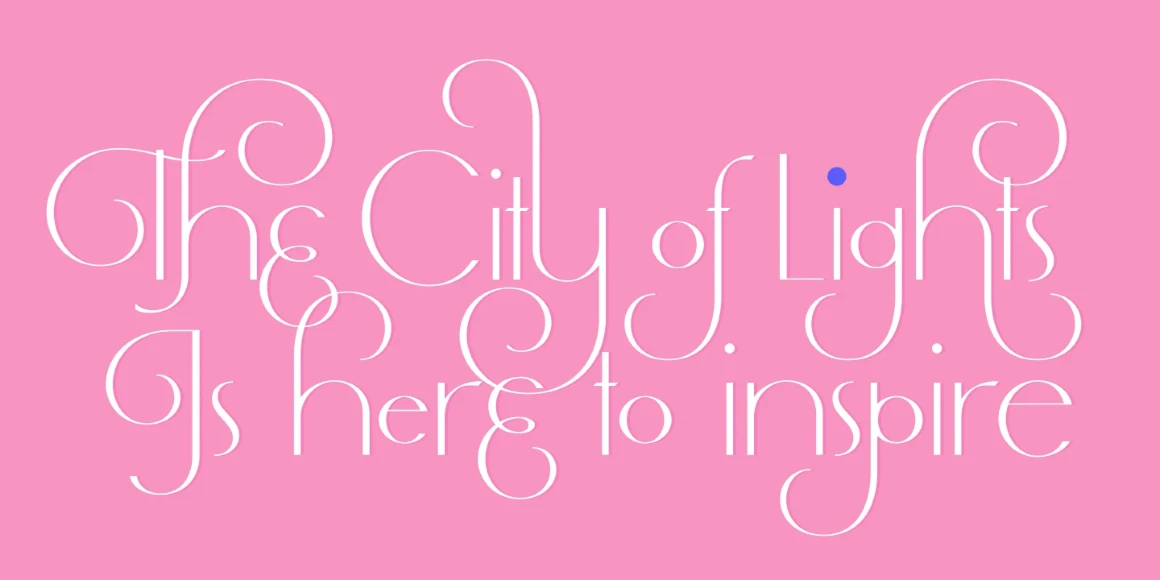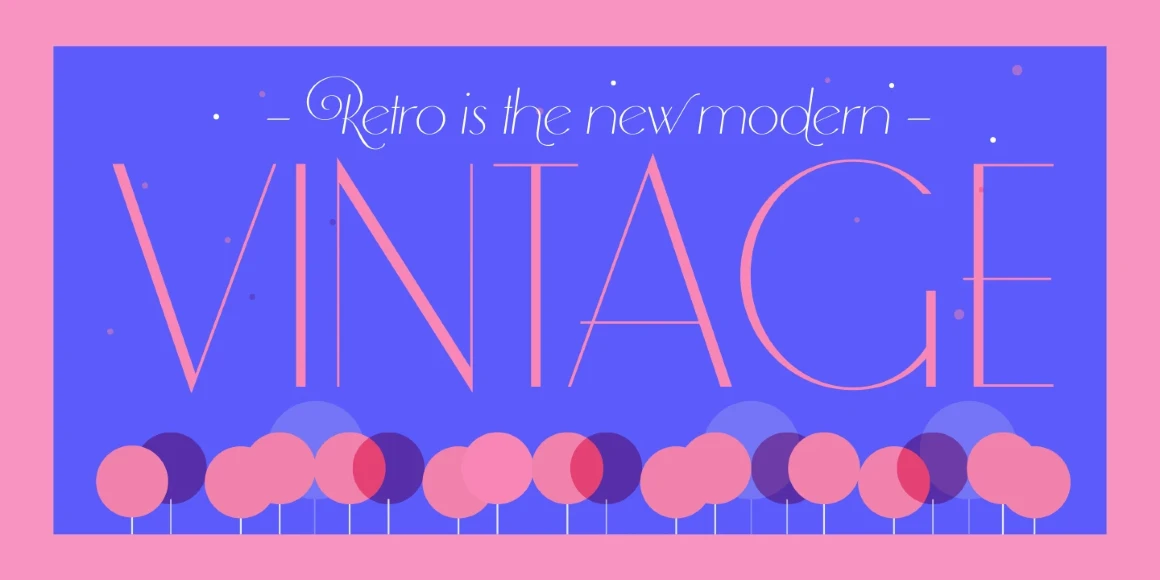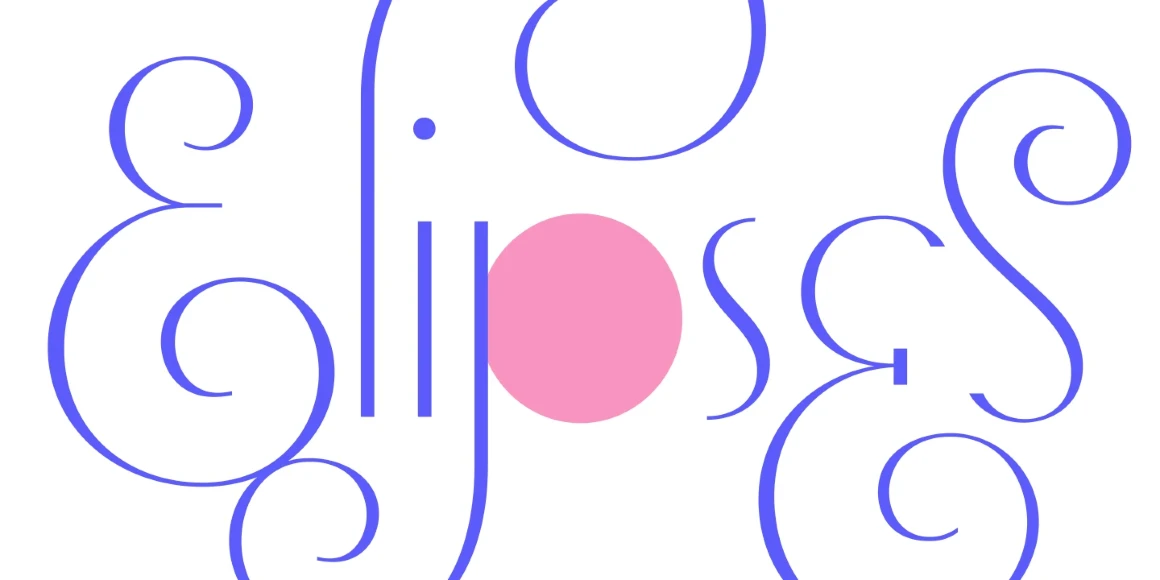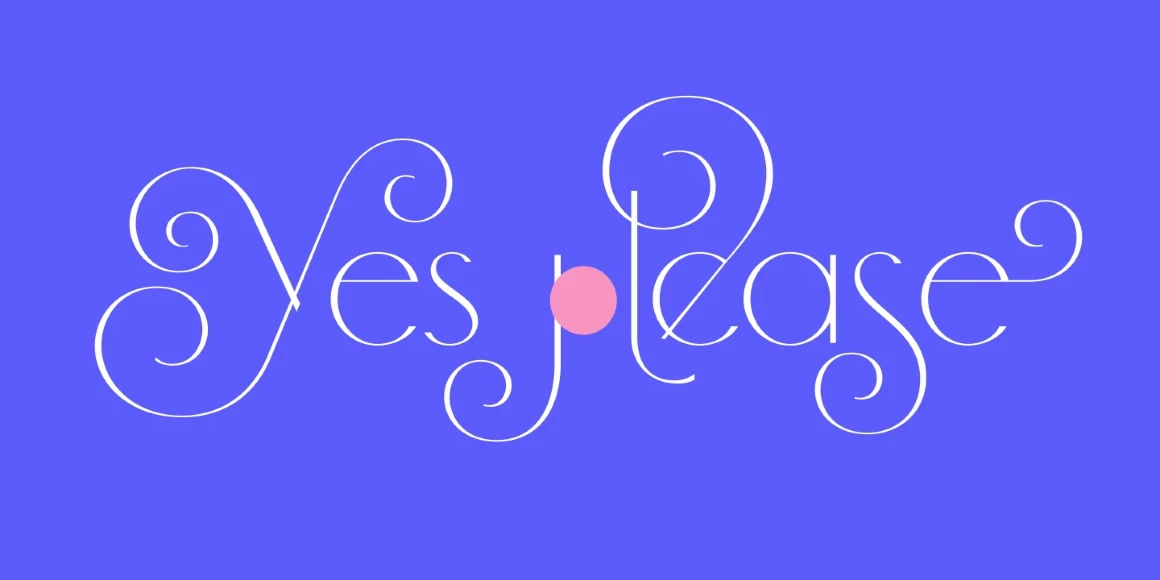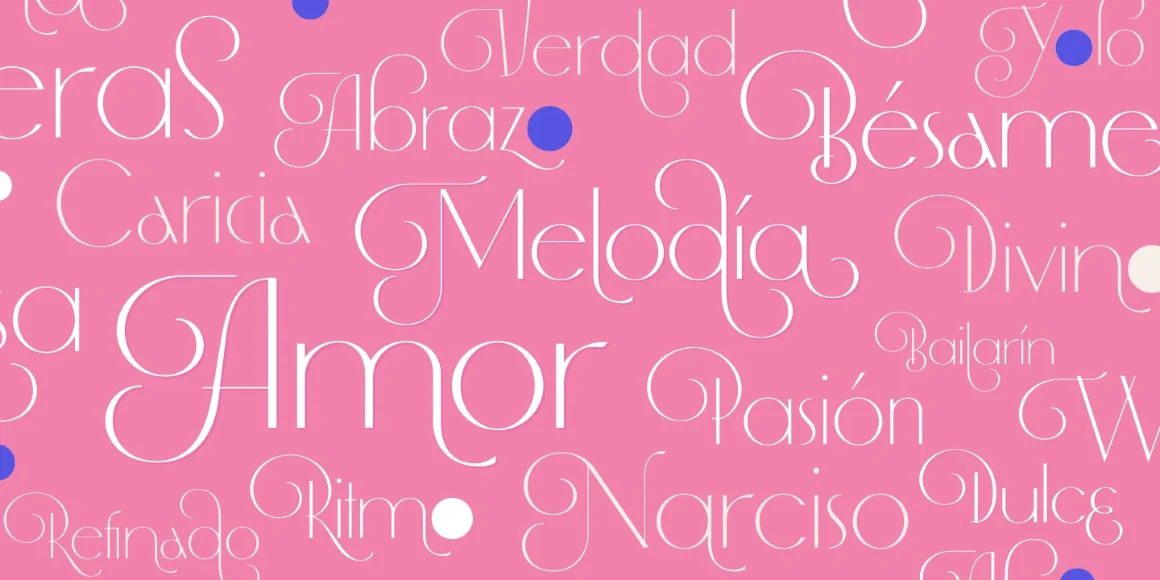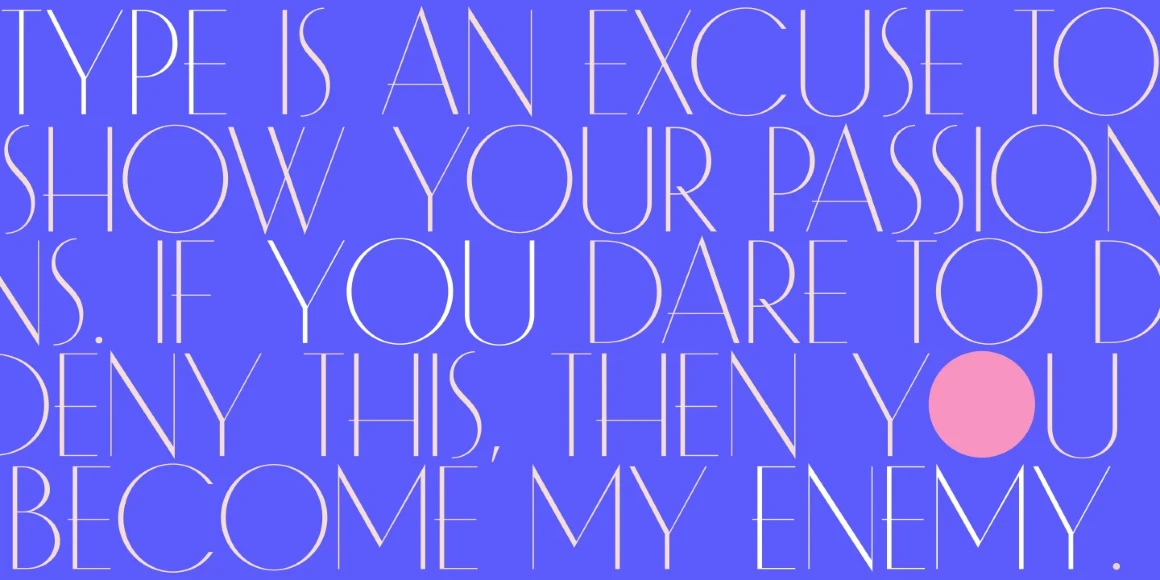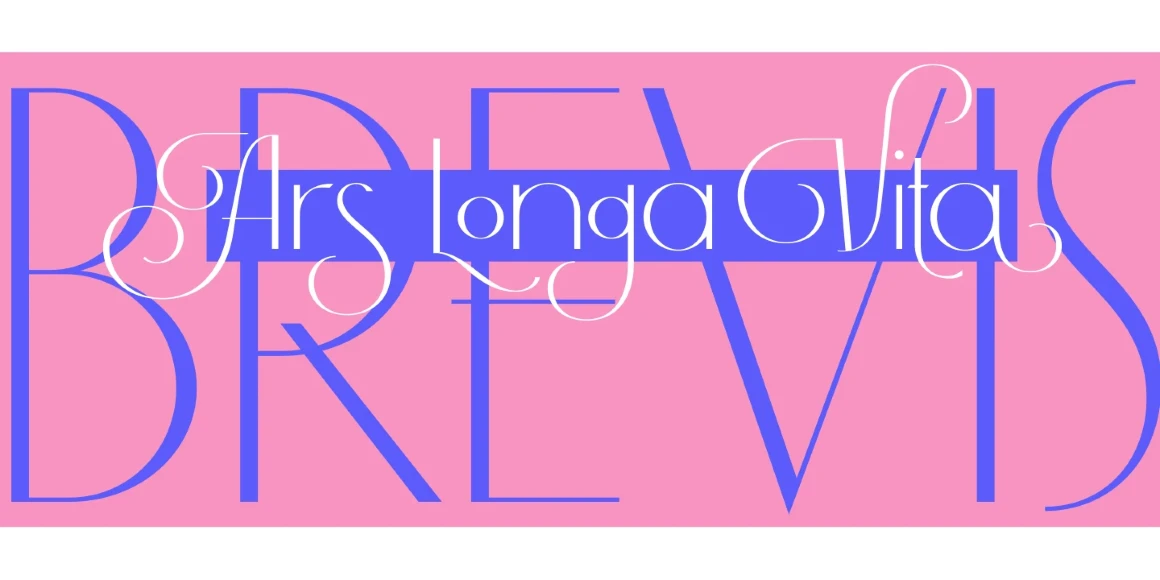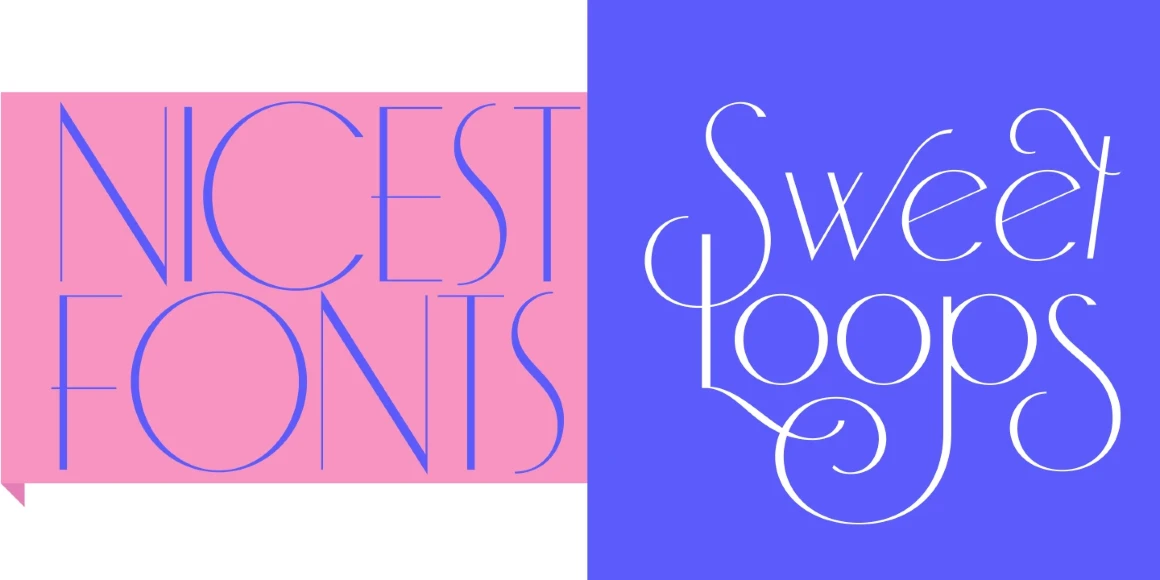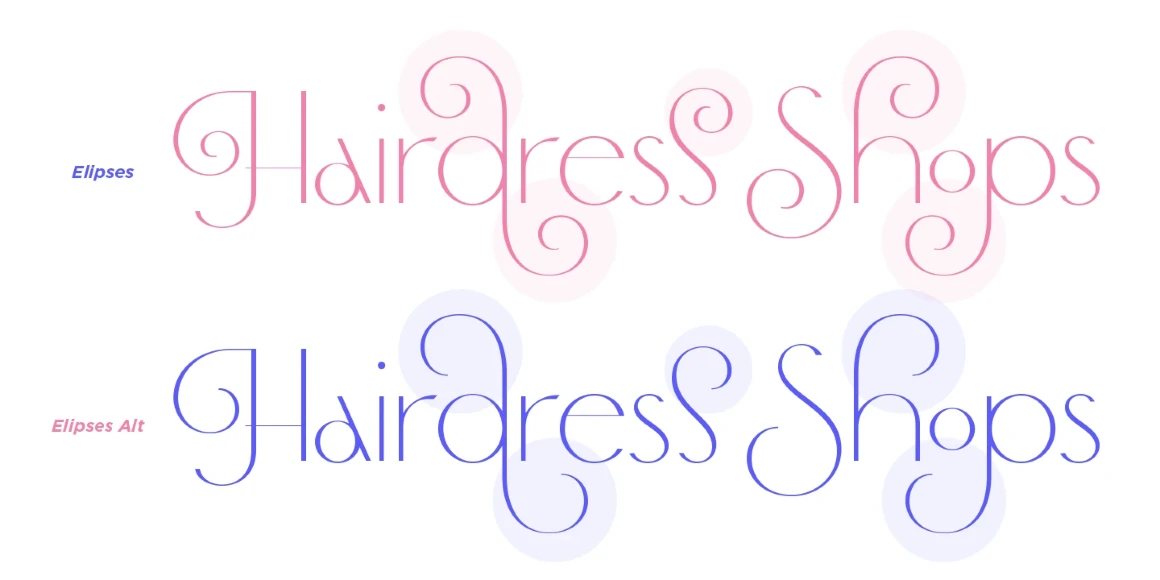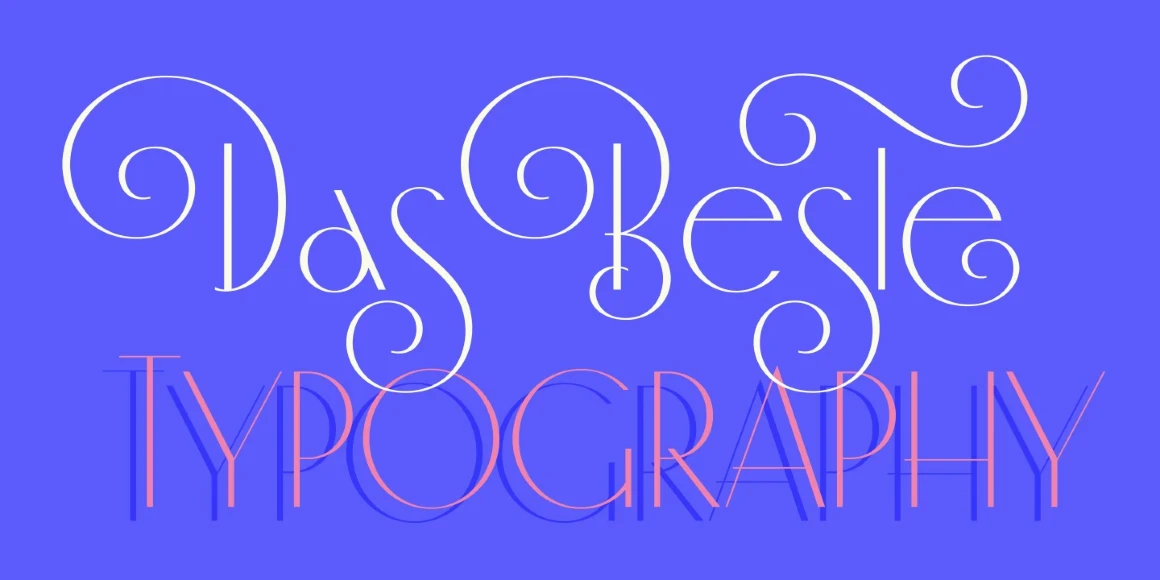
Elipses
By Maximiliano Sproviero
Elipses Bold
Elipses Bold Alt
Elipses Regular
Elipses Regular Alt
Elipses Regular Caps
Elipses Regular Italic
Elipses Regular Italic Alt
It all began with an ellipse. Like an artist who goes from a pictorial logic to one more abstract, Max stripped all ornamental detail from the geometry of Elipses. The beauty of the font is laid bare, proving there is no need for complexities. The font comprises ellipses and stems with some inspiration from the Art Deco letter shapes and architecture. Editorial magazines, display books, ad campaigns, and fashion! Elipses is for any designer who wants to cause a stir in an elegantly dramatic way.